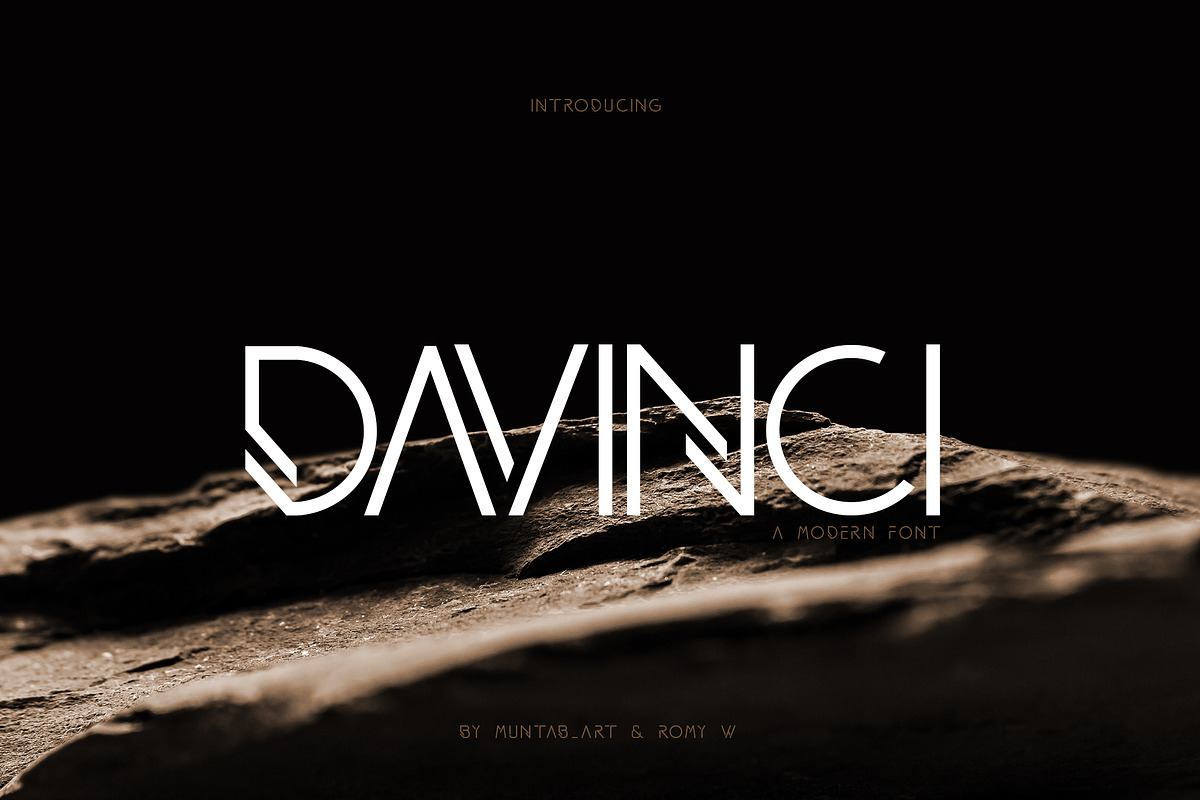
DAVINCI FONTS | MODERN SANS Free Download
Elevate your design game with DAVINCI FONTS | MODERN SANS Free Download, a sleek and minimal typeface crafted for contemporary aesthetics. You need to purchase this font for commercial use. However, you can test it in personal or demo projects using DAVINCI FONTS | MODERN SANS Free Download. With clean lines, balanced spacing, and a modern flair, this font is ideal for branding, web design, editorial layouts, and professional presentations. Designers love its clarity and versatility across digital and print platforms. Download DAVINCI FONTS | MODERN SANS Free Download today and bring refined sophistication to your next creative project.